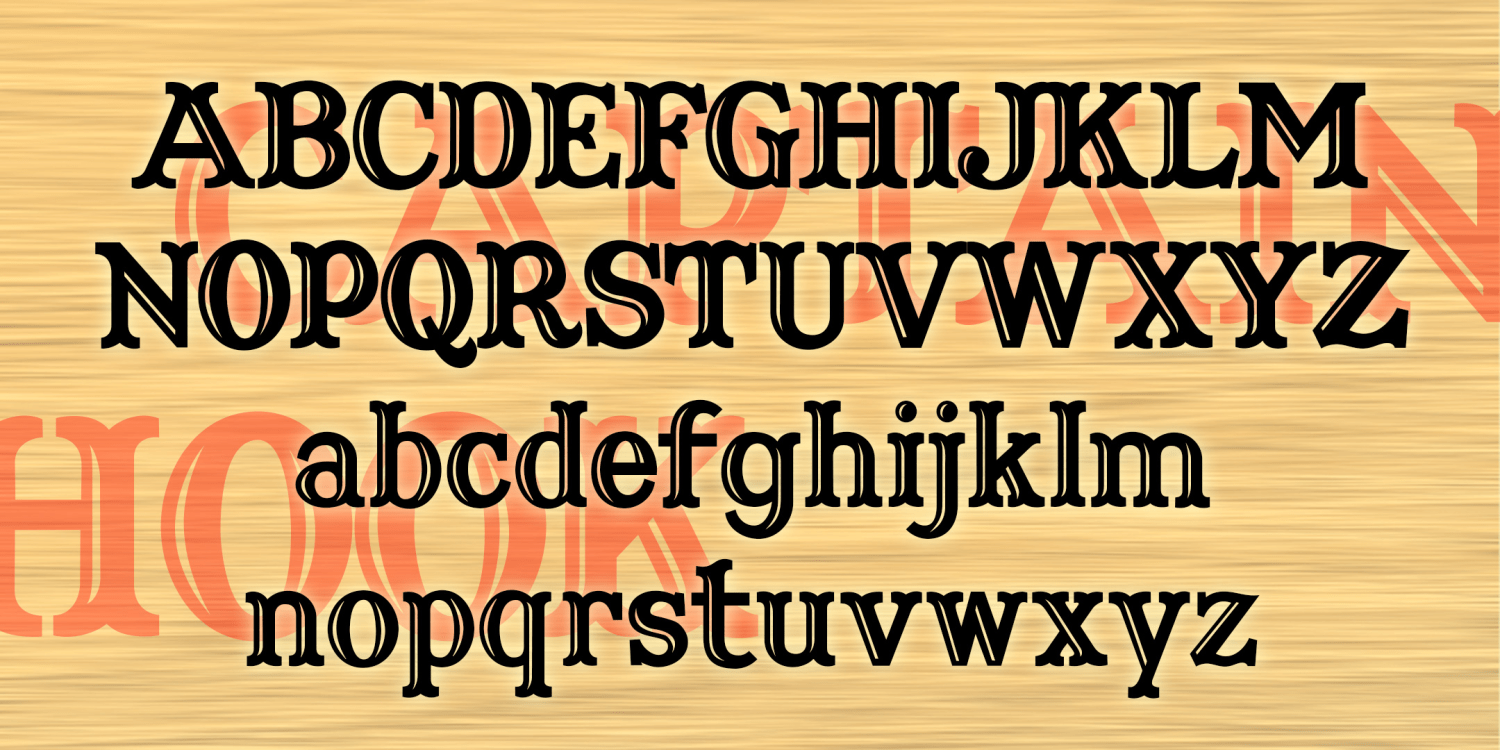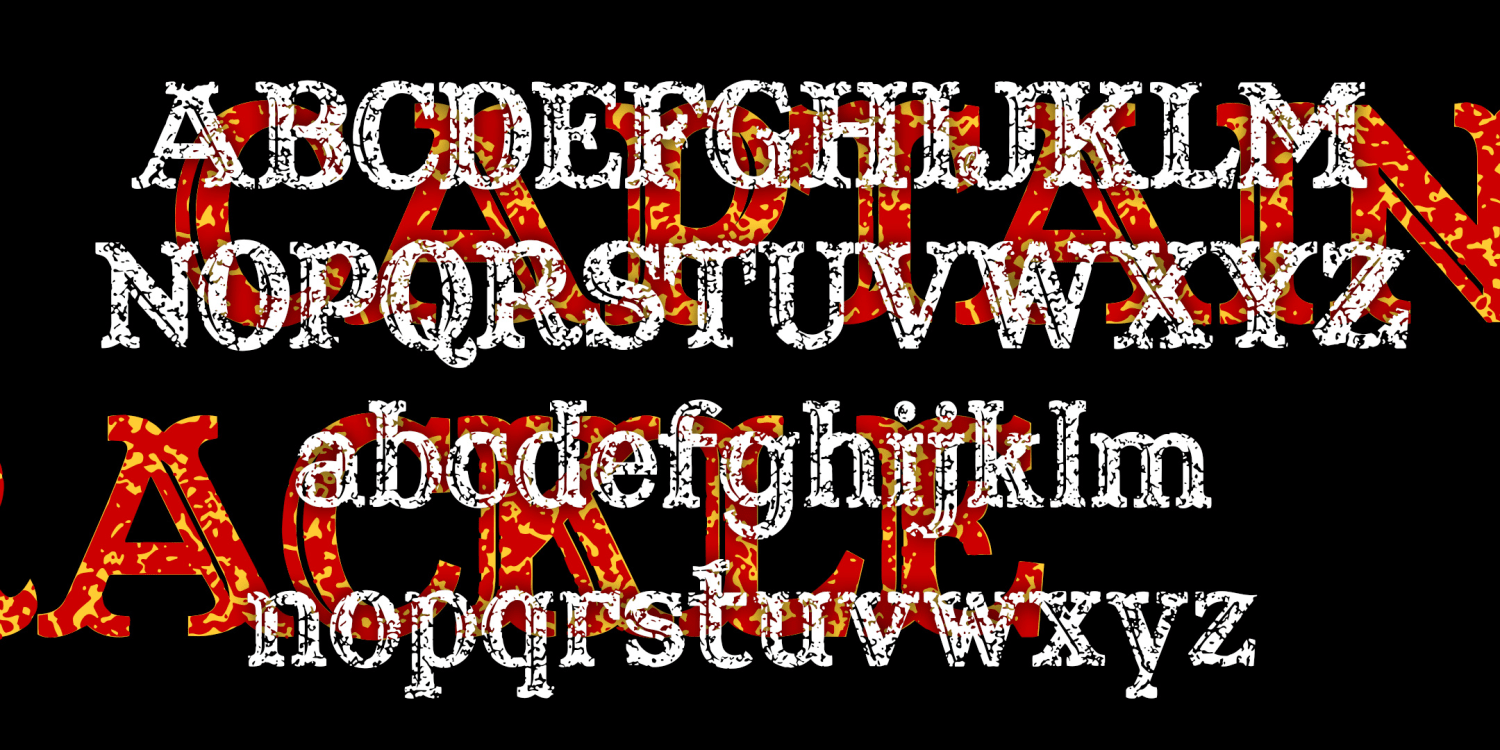
Captain Howdy
Captain Howdy was inspired by the font often seen on classic Ouija boards, known as a woodtype, "circus," or "Western" font. Cleanly redrawn using my 70s-vintage wooden Ouija board as a model.
Captain Howdy has been expanded to include lowercase along with all the familiar uppercase letters, and is known as Captain Hook, which also comes in a cool textured version.
Captain Howdy includes 186 glyphs.